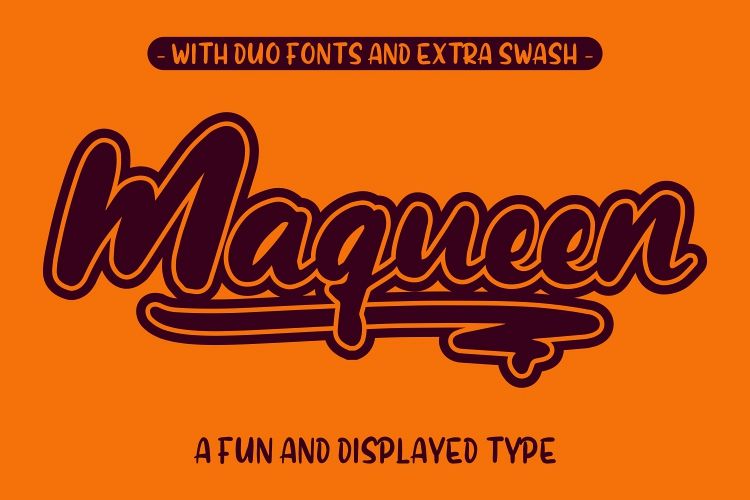
Maqueen
Maqueen is Duo Font, friendly and round display family inspired by a fun and kids stuff. The duo Fonts consists of two styles; Display Sans and Semi Script, which are designed to be combined together. You can use any of the three styles as your main style and use the others to create multilayered typography that all share the same aesthetic. The typeface is well suited for branding and packaging design, advertisements, posters and even editorial design as a headline style.
Include EXTRAS SWASH on Maqueen Swash